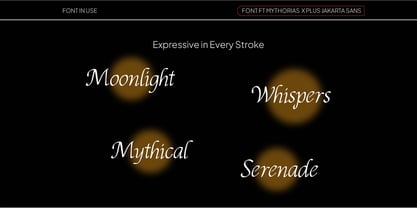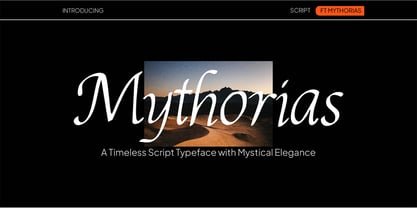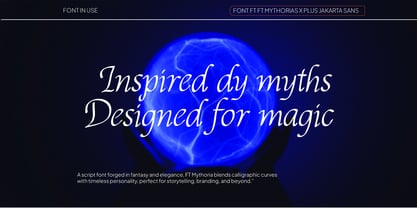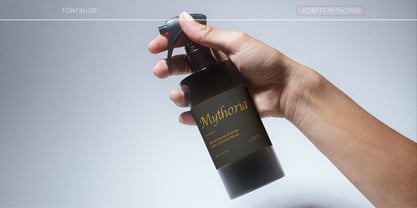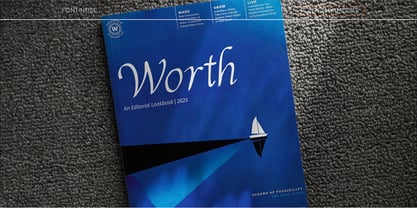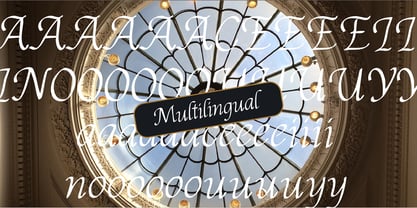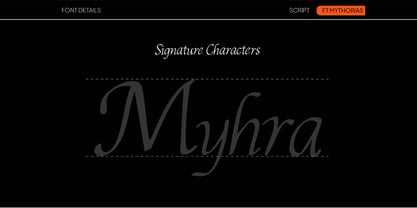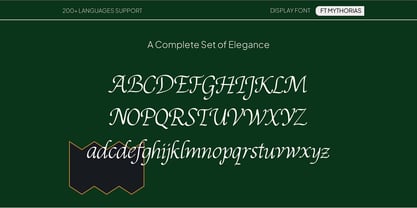
Mythorias
by Firstype Studio
The Mythorias Font Family was designed by Adrian Syauqi and published by Firstype Studio. Mythorias contains 1 styles. More about this family
Mythoria is a striking high-contrast serif typeface that embodies timeless elegance and bold sophistication. Ideal for a variety of applications, including editorial headlines, luxury packaging, branding, and high-end design projects, Mythoria captures attention with its sharp serifs and graceful curves. Each letterform is meticulously designed to harmonize classic beauty with modern aesthetics, making it an excellent choice for projects that demand both elegance and a commanding presence. This versatile font is perfect for magazine headlines, perfume packaging, fashion branding, wedding invitations, luxury logos, and editorial layouts. Included features are uppercase and lowercase letters, numerals, punctuation, and multilingual support, ensuring broad usability across diverse design needs.